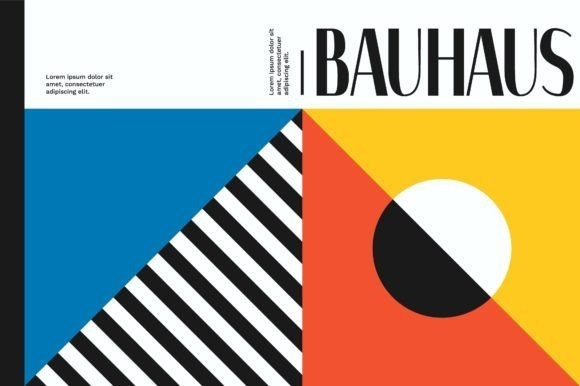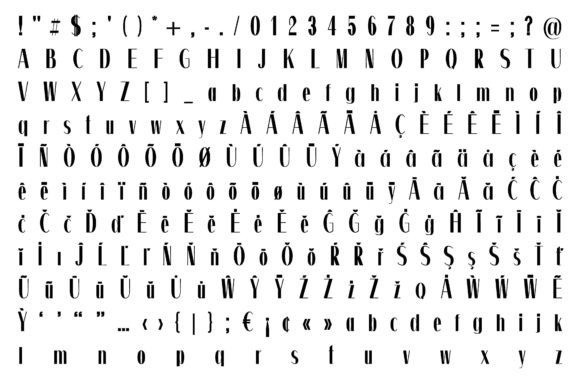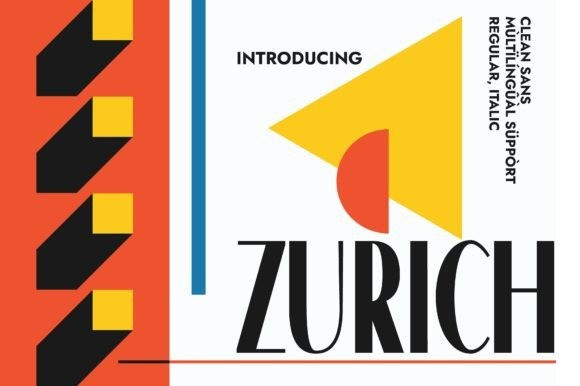
ZURICH FONT
Zurich Font is a cute and clean sans serif typeface. It was designed based on Swiss design rules and modernized them in a way that still retains the rigidity of Swiss fonts like Helvetica, while designing each character to create a vivid contrast with the letter structure, giving it a geometric, clean and sophisticated feel.